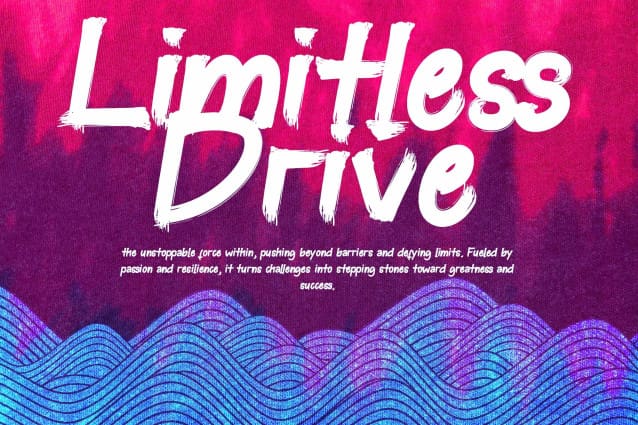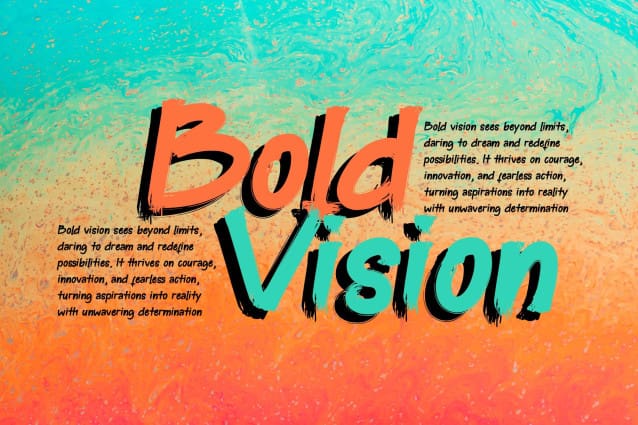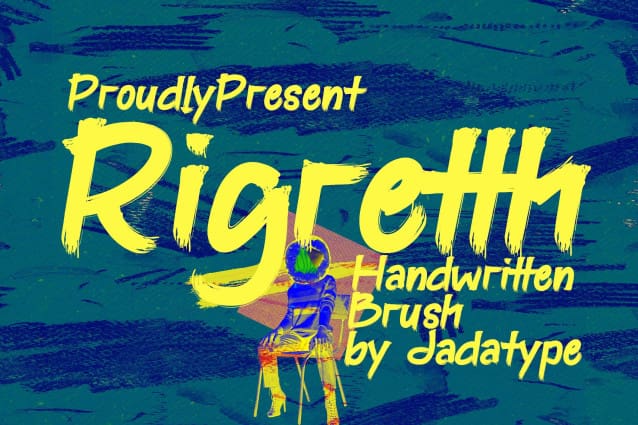
Rigretth Brush Font
Rigretth Brush Font is a fun and joyful display font with brush outlines. It can be used for t-shirt designs, crafts, events, or anything that needs a friendly accent.